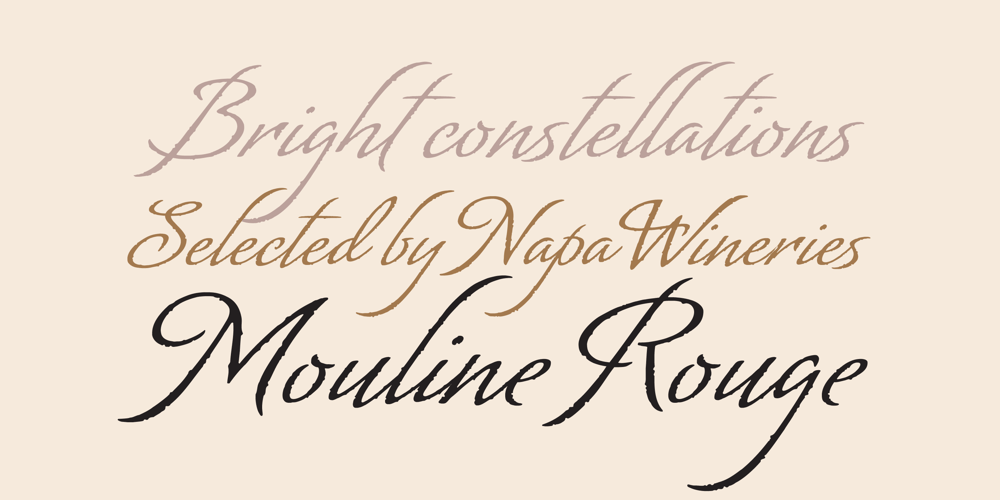
Matogrosso Script Font Family was designed by Alejandro Paul, Angel Koziupa and published by Sudtipos. Matogrosso Script contains 1 styles and family package options. Matogrosso is another rough script from Argentine calligraphy team Koziupa and Paul. With its expressive urge at the importance of discovery, it is ideal to use on wine labels or organic food packaging, stationery and old maps. It also makes a great choice for designs relating to outdoor activities and rugged travel, where the concept of the wild is to be accentuated. Matogrosso’s OpenType programming combines several alternate lowercase characters to generate perfectly fit and more natural textures.